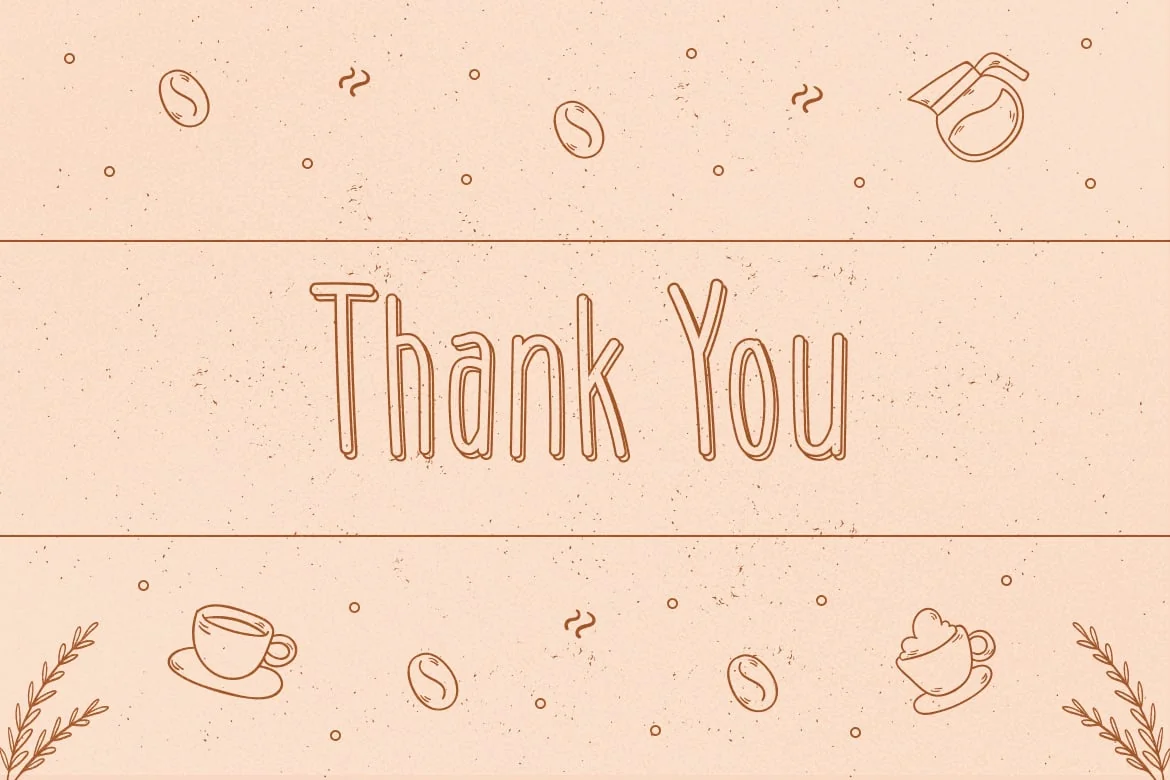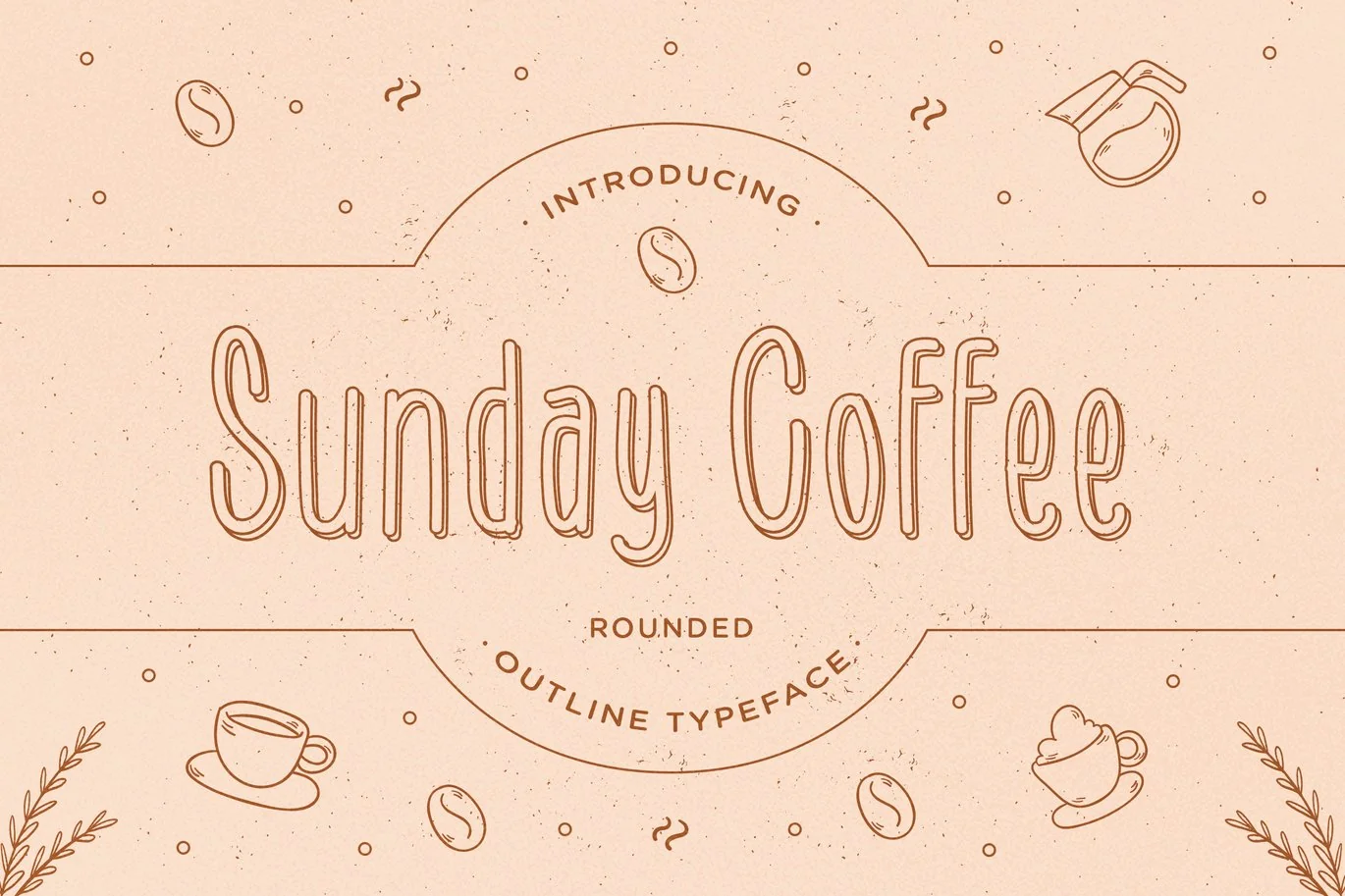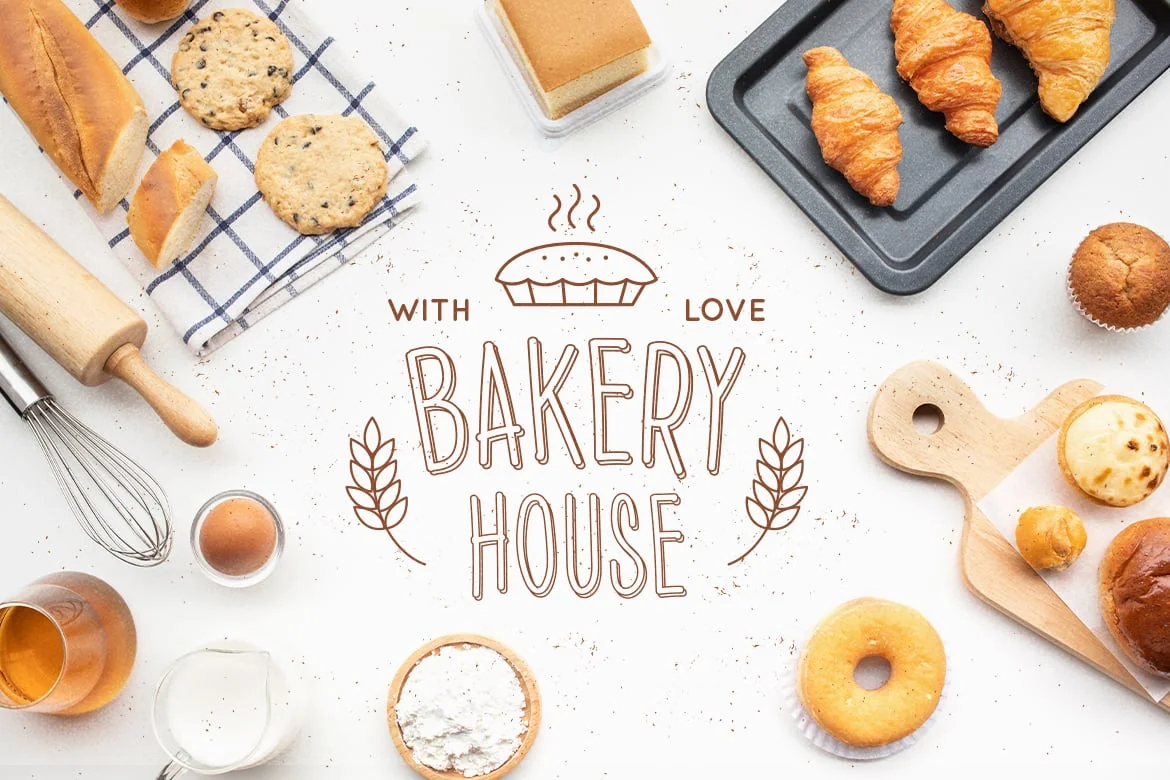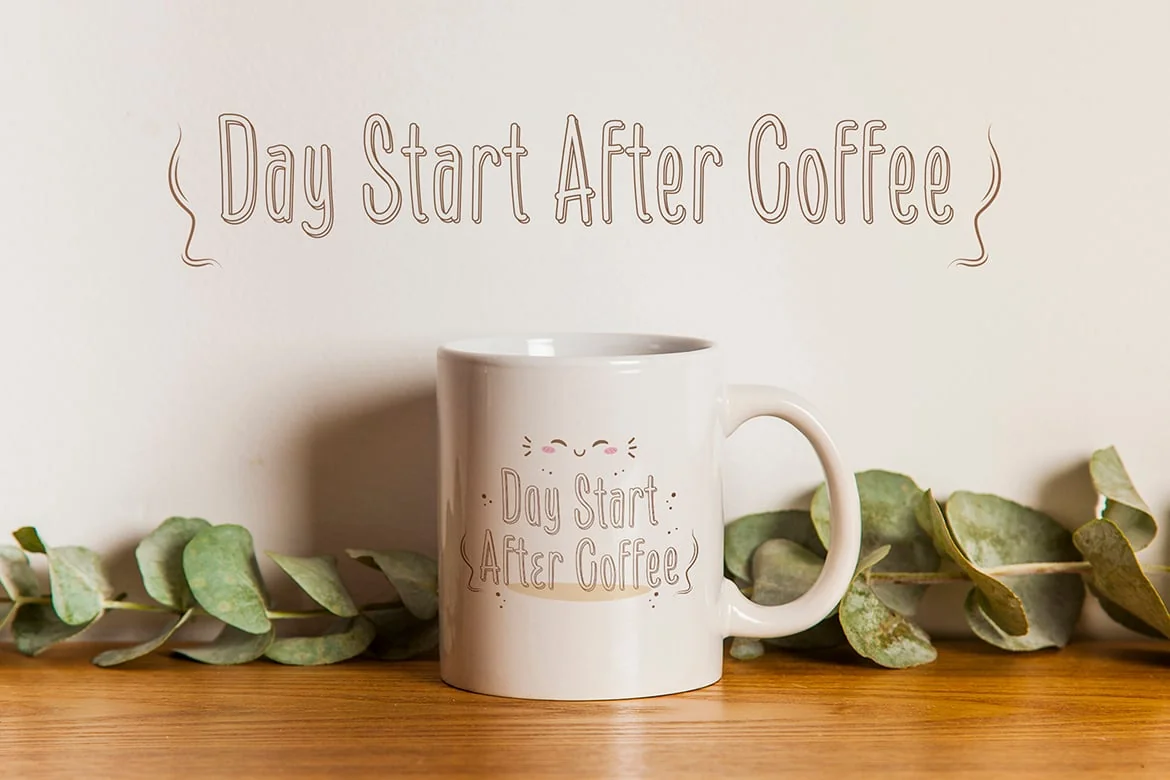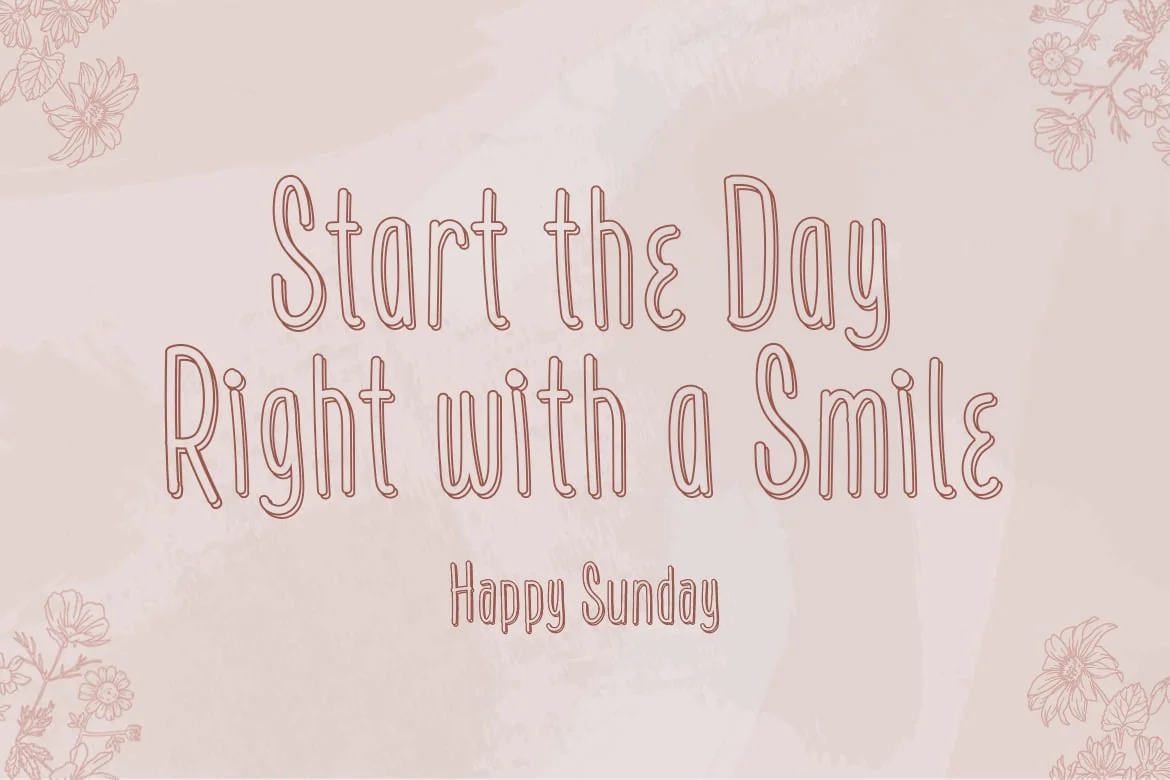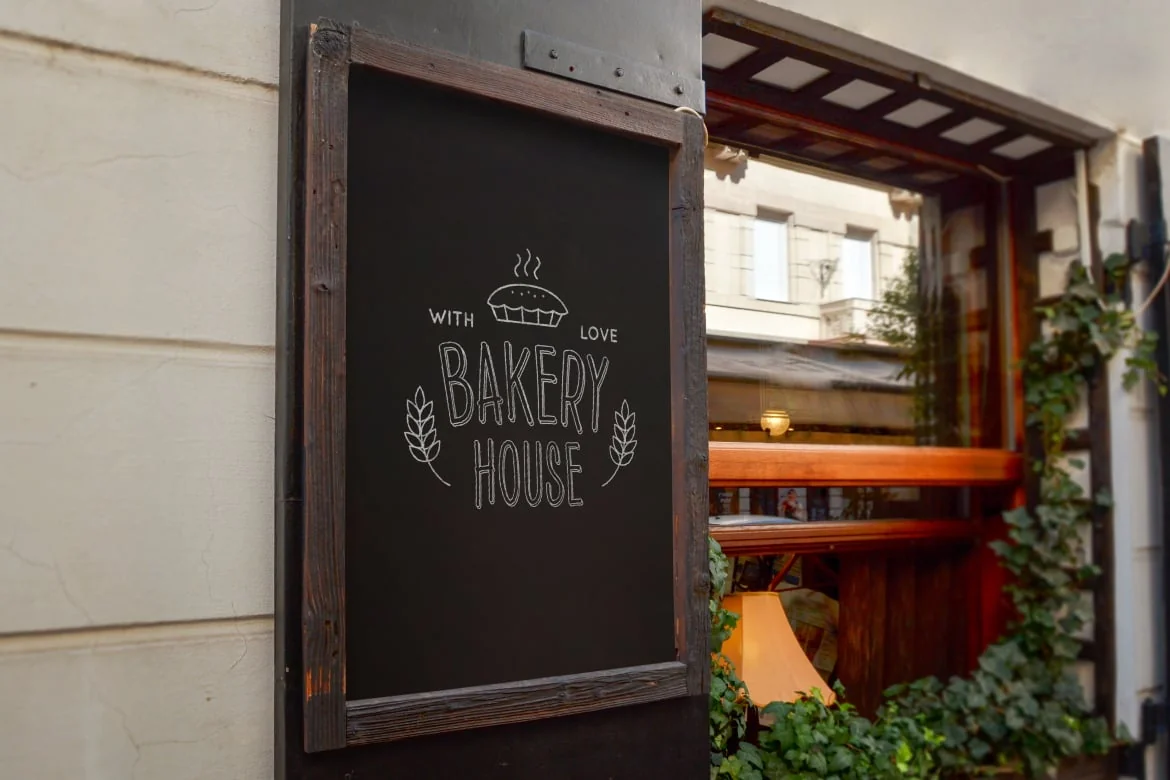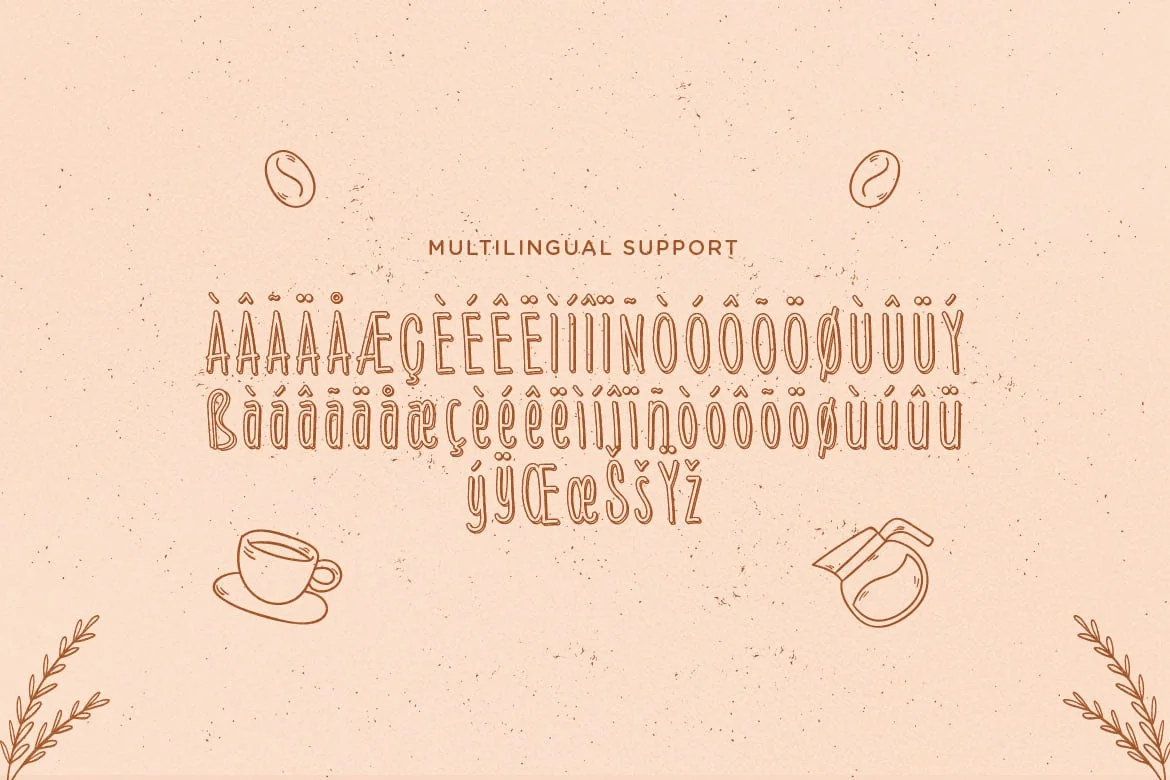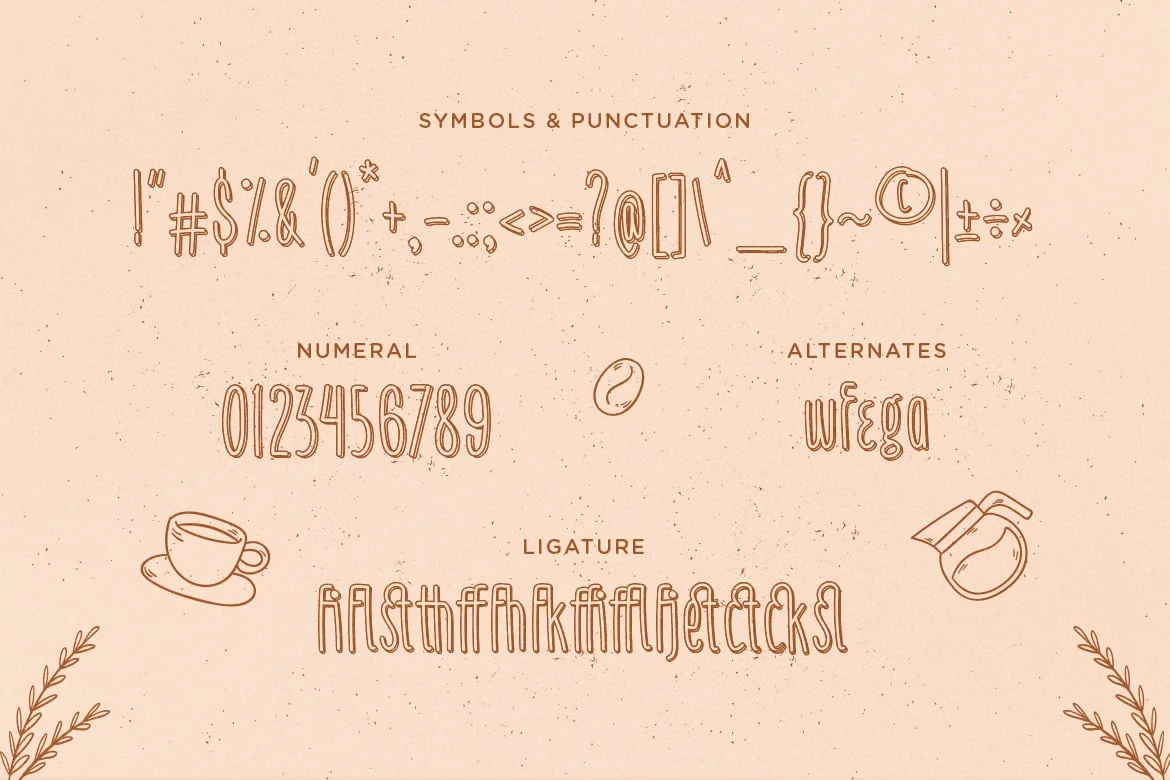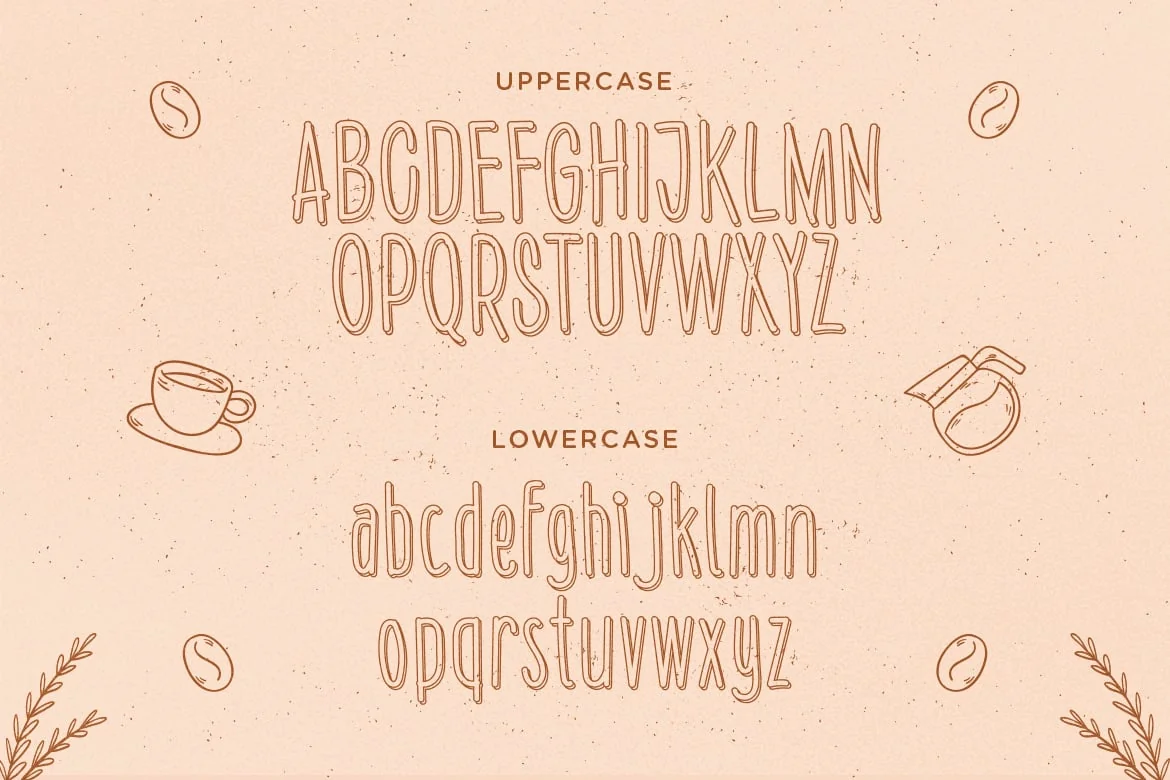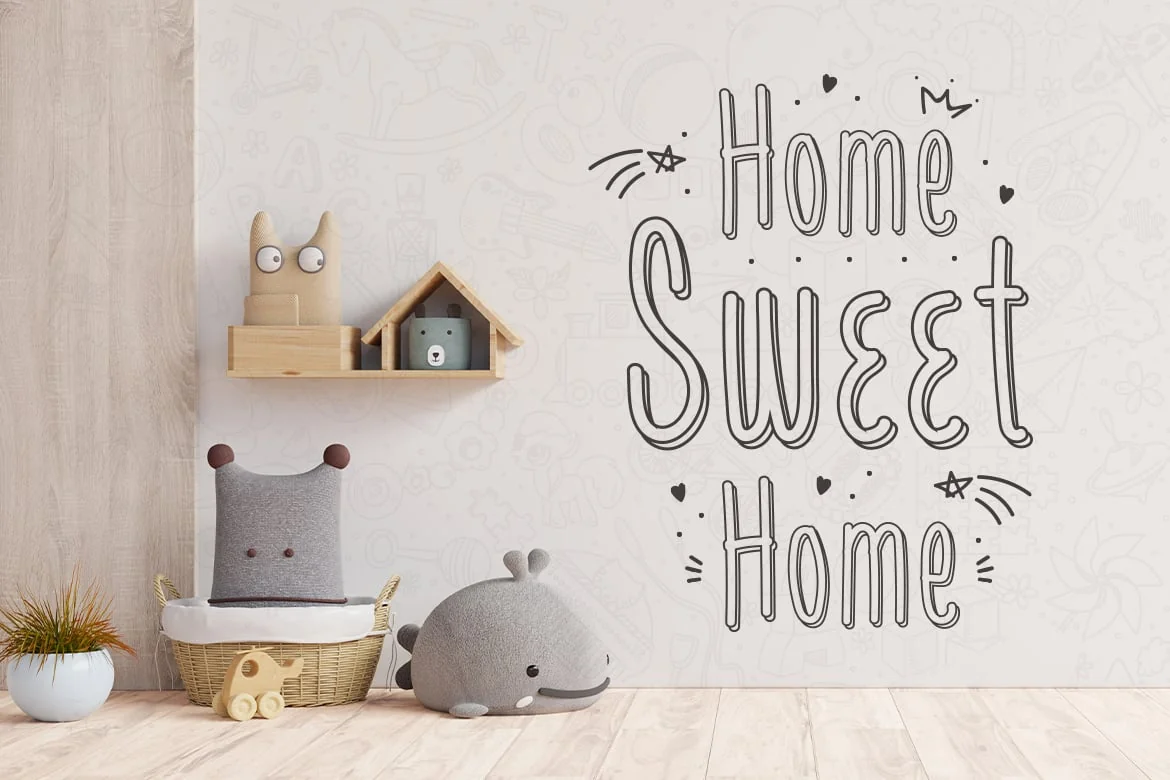
Sunday Coffee – Rounded Outline Typeface
Sunday Coffee is a classic rounded outlined typeface that was inspired by the letters used in old advertisements and packaging. Its rigid shape gives your design strong, sharp, and blocky feelings.
With its classic and vintage feel, it suits best for E-Sport logos, liquor/food labels, packaging, headlines, space-fillers, logotypes, typographic quote writings, pricelist menu for coffee shop etc.
– Alternates